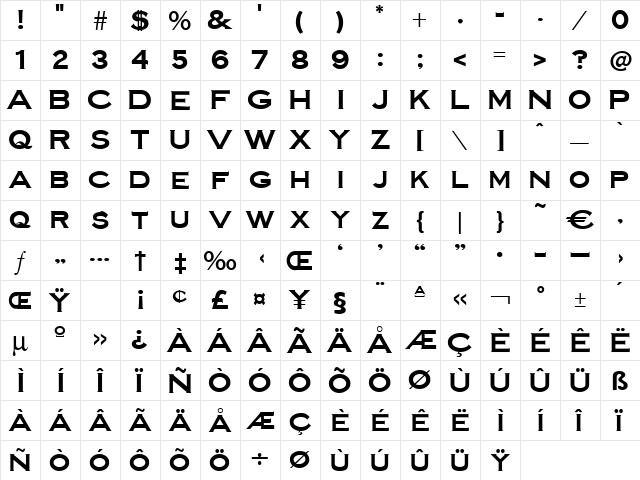
Ulster Regular
Design Context for Ulster Typeface
Ulster takes a measured approach to typography — its balanced proportions and neutral character make it a reliable workhorse for both digital and print work.